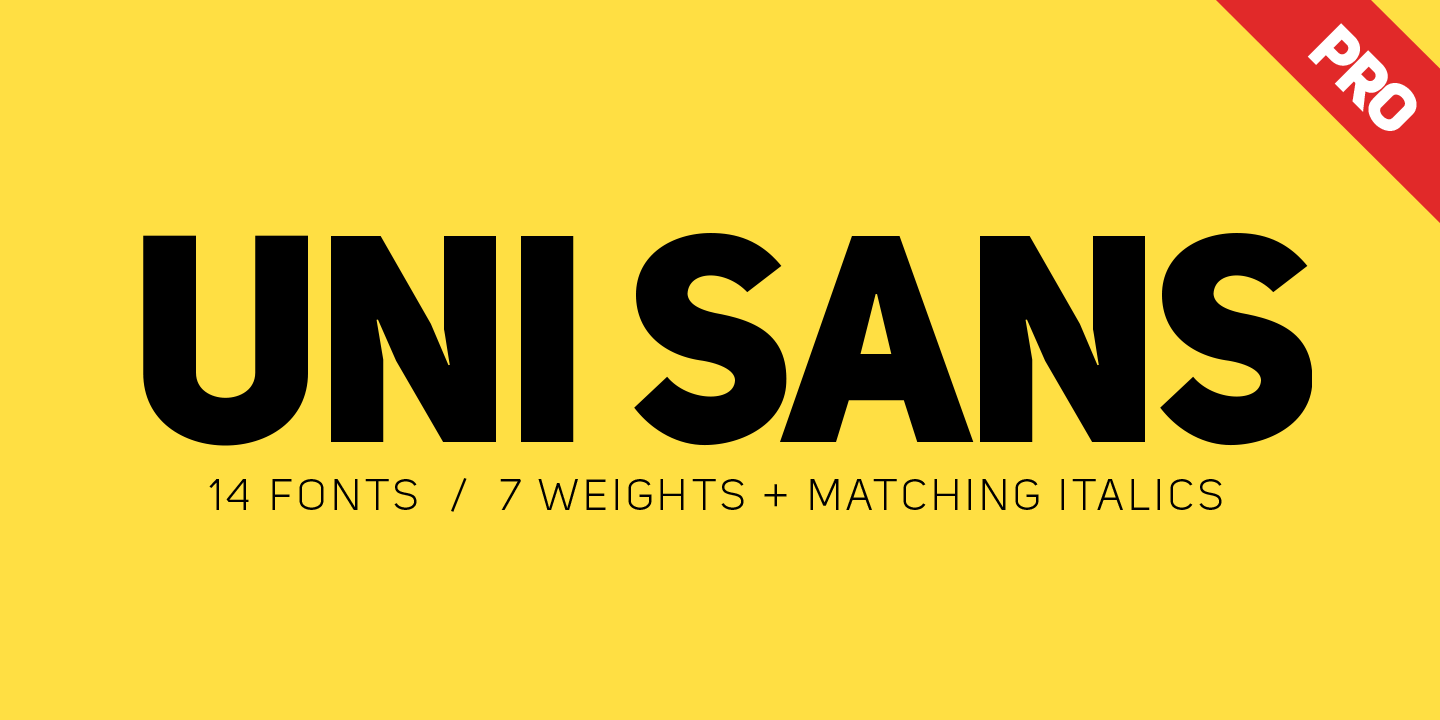
Uni Sans Font Free Download is a bold, modern sans-serif typeface known for its strong geometric structure and excellent readability. Perfect for branding, logos, headlines, posters, packaging, and web design, Uni Sans Font brings a confident and contemporary look to any project. Its clean lines, sharp edges, and balanced proportions make it ideal for designers seeking a versatile, professional typeface that works beautifully across print and digital platforms.
Whether you're crafting bold headlines, modern brand identities, or sleek editorial layouts, Uni Sans Font delivers clarity, strength, and visual appeal. Its adaptability across various design contexts makes it a reliable choice for projects that demand a contemporary, polished aesthetic.